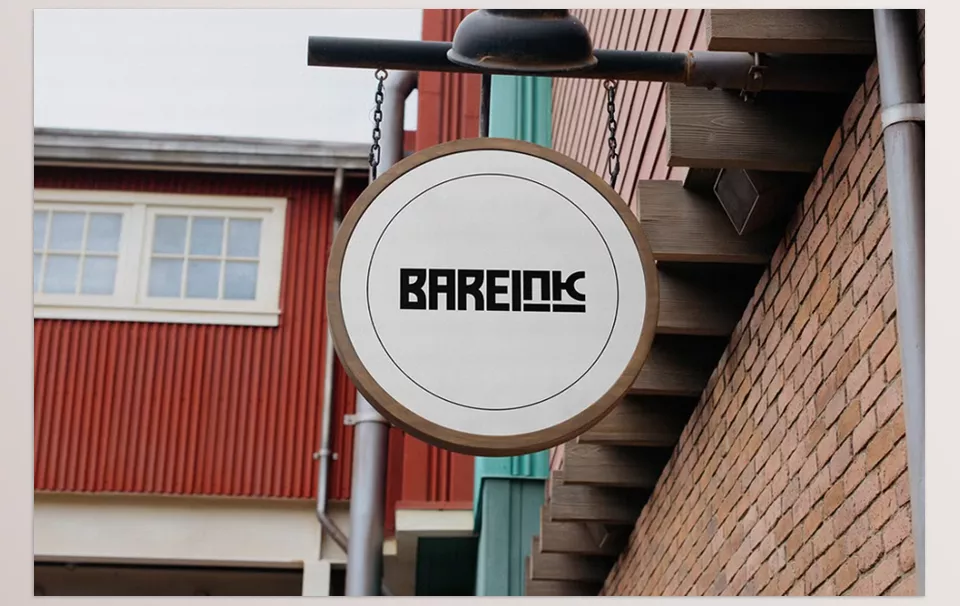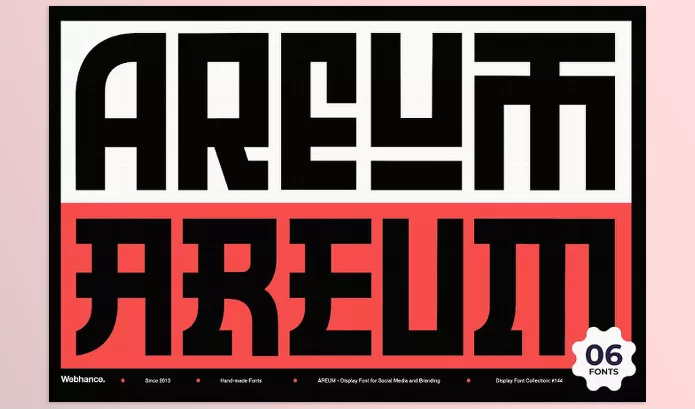
Creative Market – AREUM Display Font is a striking, modular typeface that captures the essence of Korean Hangul characters with its clean geometric design and structured elegance.
Webhance Studio – AREUM Display Font Features
- Versatile Styles: Includes three main styles—Regular, Edge, and Horizon—plus their italics, offering six distinct fonts.
- Comprehensive Character Set: Features uppercase letters, numbers, and punctuation with over 200 glyphs.
- Inspired Design: Draws from traditional Korean aesthetics with a grid-based structure for a minimalistic impact.
Image 1: Experience the structured elegance of Korean-inspired geometry with AREUM’s bold, modular design.
Image 2: Elevate your brand with AREUM’s powerful visual impact, blending cultural depth and modern style.